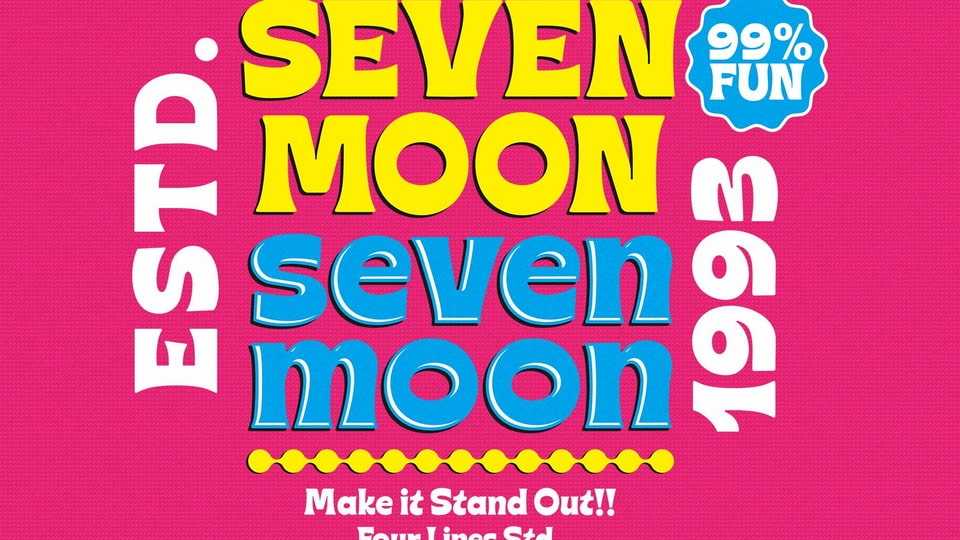
Download Seven Moon font, a retro-inspired display typeface with cheerful charm that shines through every character, evoking a sense of nostalgia and excitement. Its bold strokes and unique shape give it a strong presence, while its playful nature adds a touch of warmth and approachability.
Designer: Fourlines Design